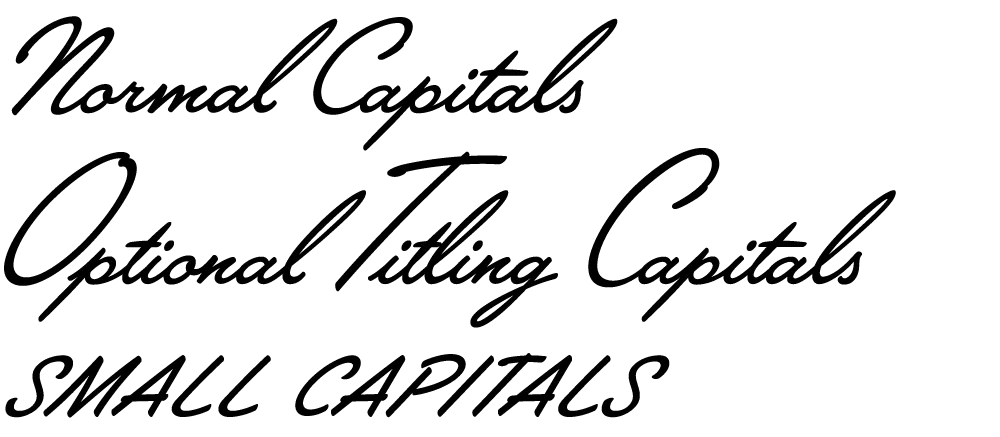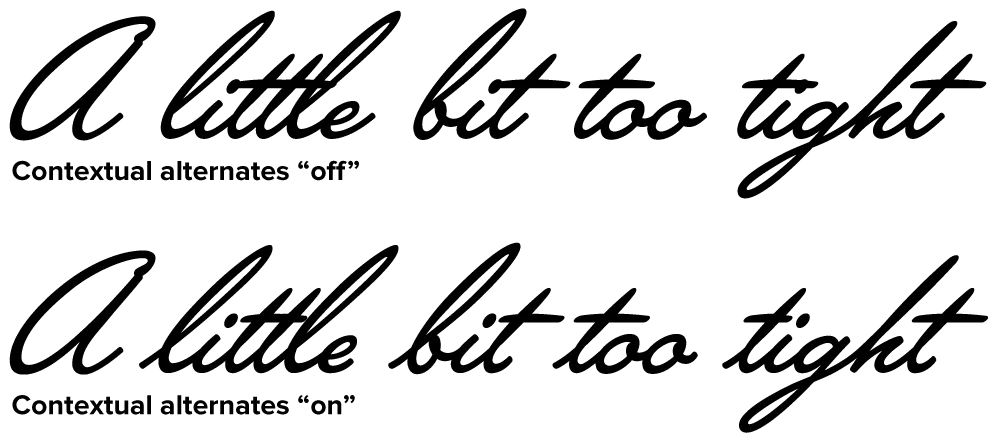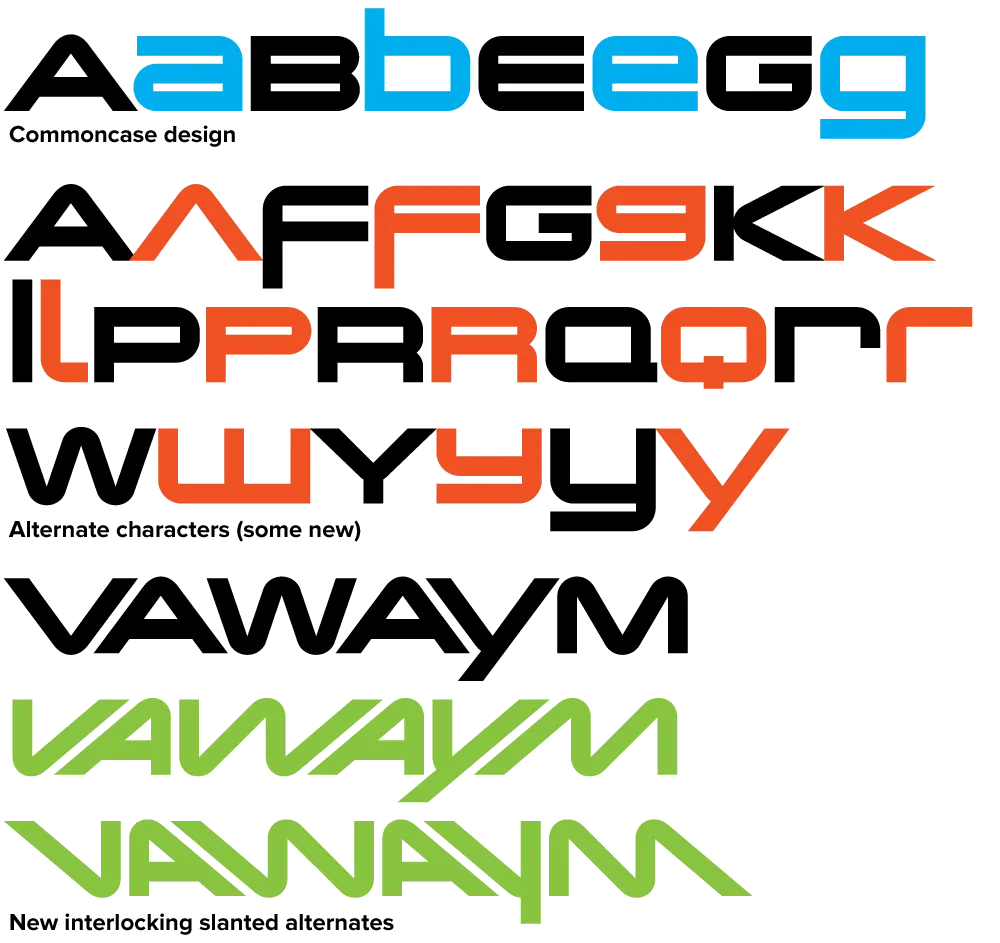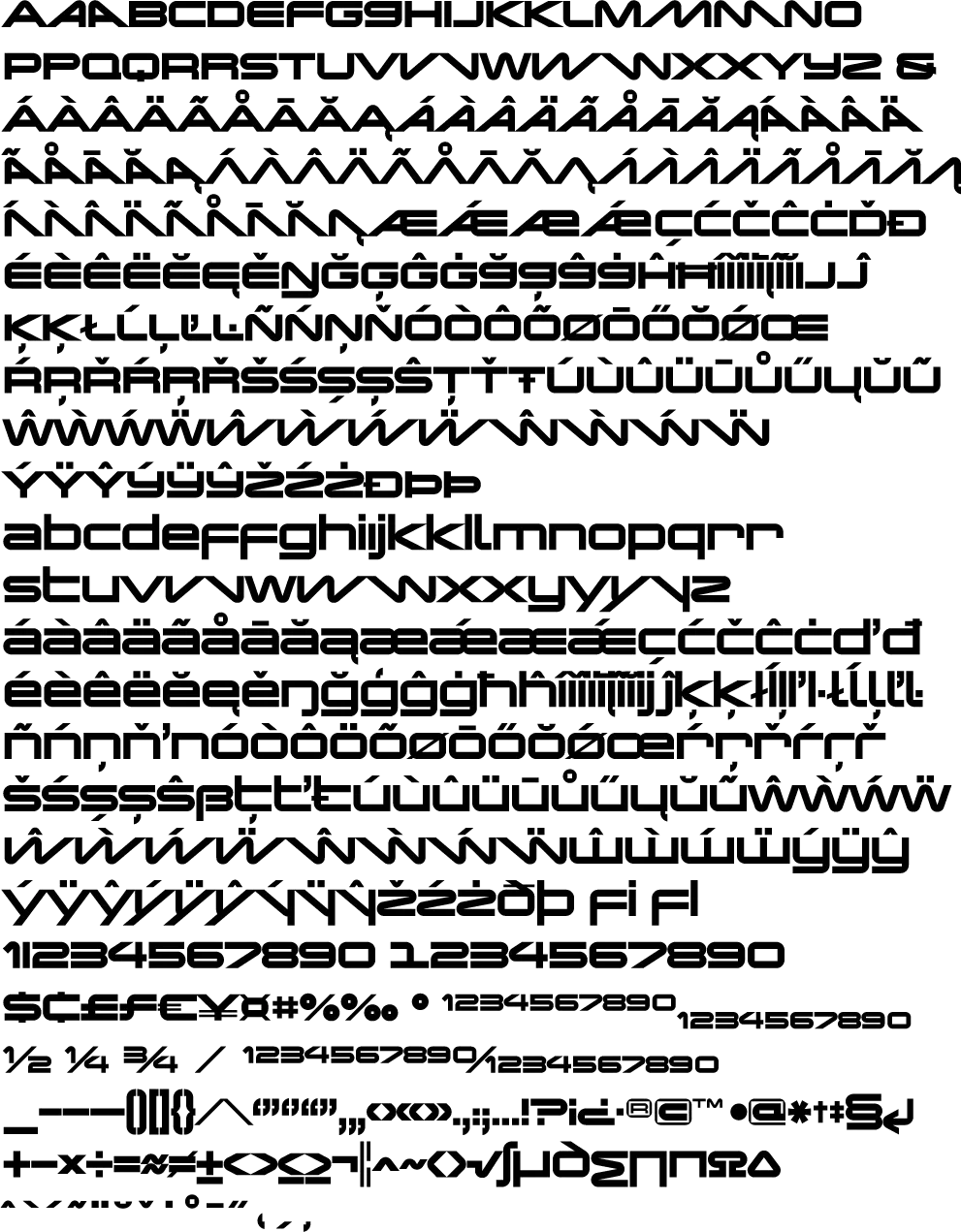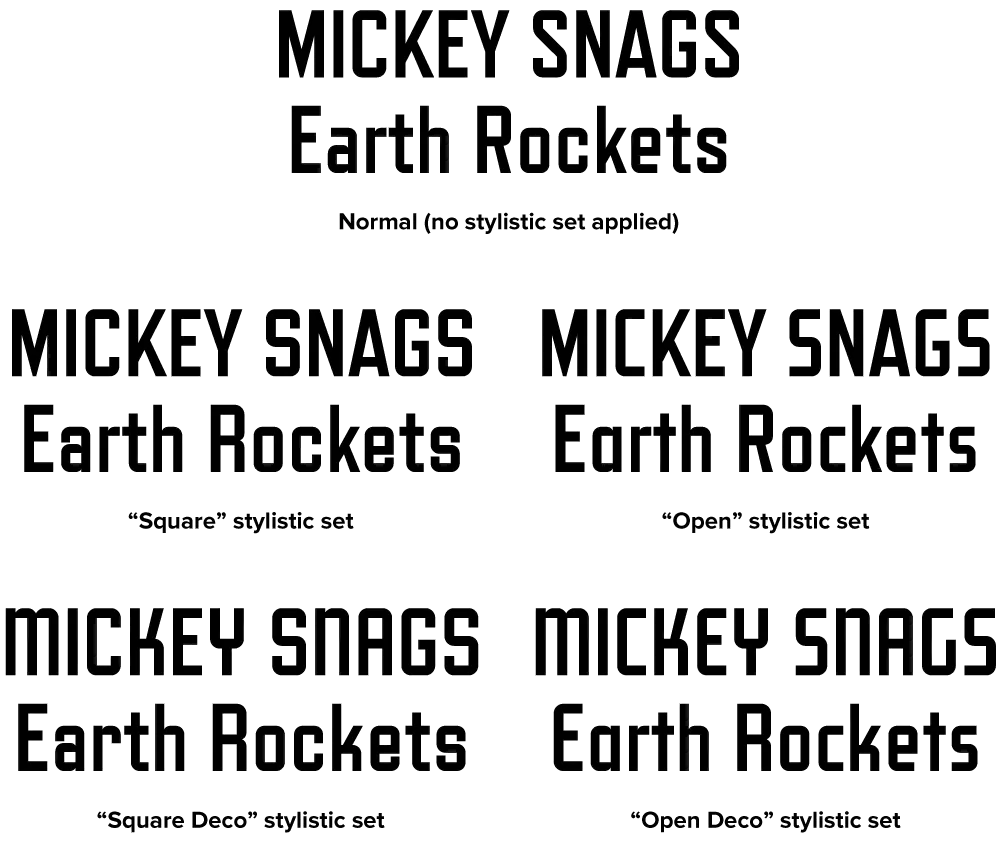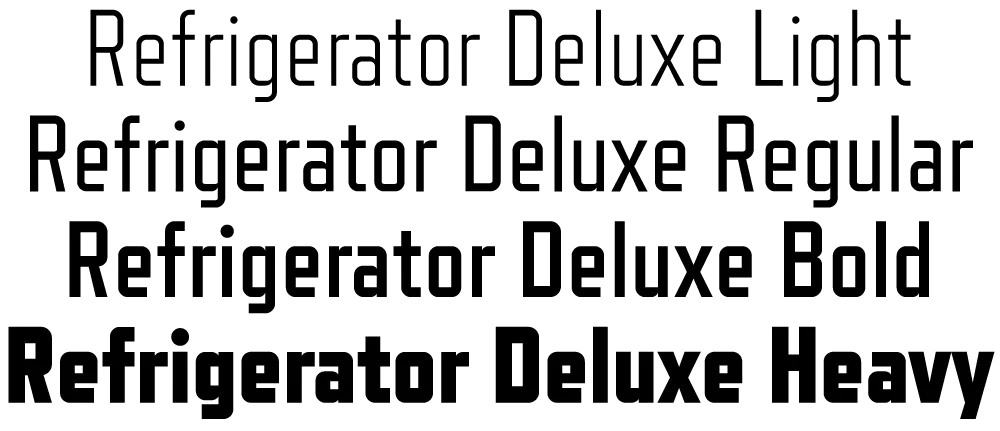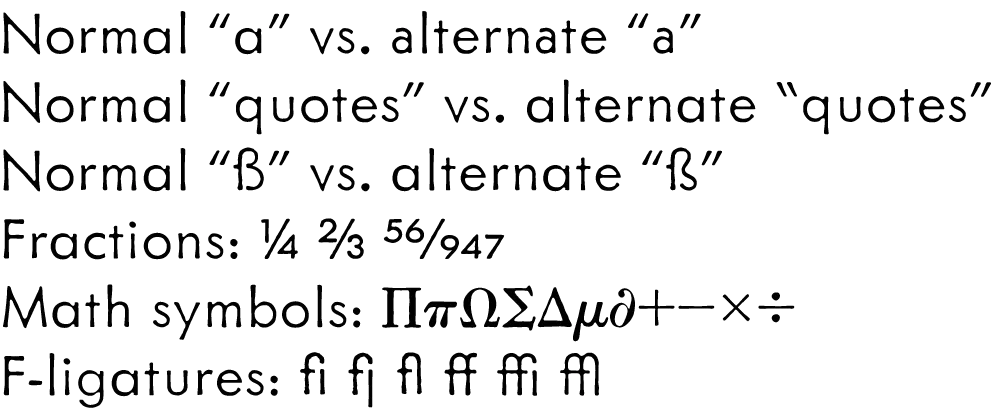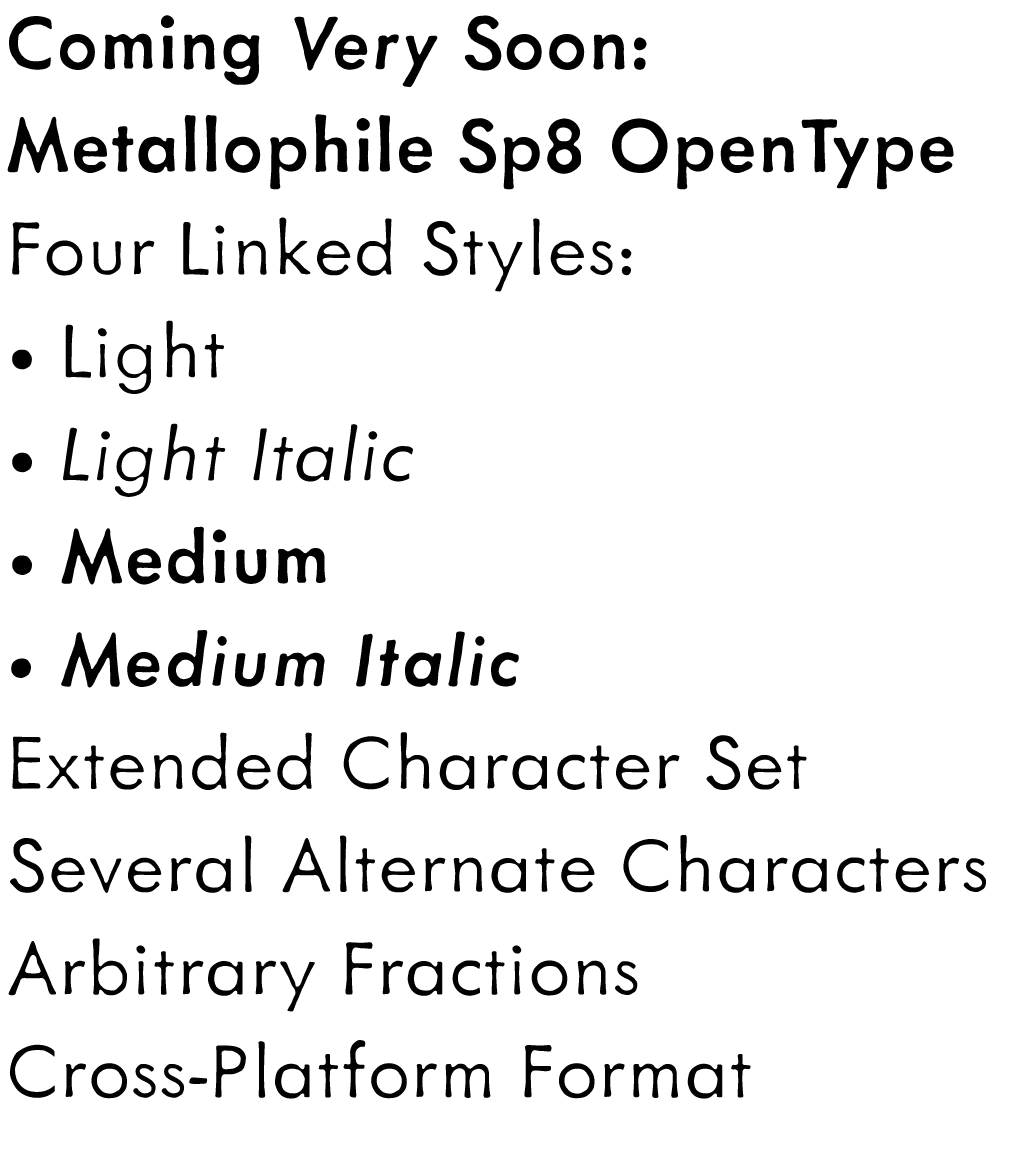
Changeling Neo Weights
In 2003, I released my interpretation of China, an old VGC face, which I called Changeling. I redesigned many of the characters for more even type color. I also added lowercase-style variants to nearly all the uppercase forms, for endless “unicase” combinations, alternate forward- and back-slanting characters for A, M, V, and W, and a more complete character set. I spaced it to emulate the “tight, but not touching” style of spacing popular in the ’70s. Finally, I created four new styles—Light, Regular, Stencil, and Inline.
Changeling Neo Weights
Changeling Neo (2008) builds on this with even more alternate characters (including a few from VGC China I had previously left out), extensive language support, and lots of improvements in fit and finish. Changeling Neo is available exclusively in the OpenType format. Alternate characters are accessed using OpenType Stylistic Alternates and Stylistic Sets features. Standard characters that were “hijacked” in Changeling (to make room for alternate characters) have been reinstated. Changeling Neo also includes support for fractions, superscript and subscript, as well as tabular figures.
Changeling Neo Characters
Refrigerator dates back to 1988 as one of my earliest PostScript typefaces. The concept was very simple: A blocky, condensed sans serif with rigidly geometric forms. I was inspired partly by Neville Brody’s Industria, but very quickly it veered toward more of a mid-20th century vernacular appearance. It wasn’t based on anything specific. Rather, it seemed to come from memories of block-style lettering from when I was young.
Refrigerator Deluxe (2008) extends the family from a specific vernacular style to an anthology of vernacular styles through the extensive use of alternate characters, nearly doubling the character count. (The alternate characters are accessed either through OpenType Stylistic Sets or the Glyph palette, depending on your software application). These range from squared off, closed shapes, with a minimum of angled strokes, to open, stylized shapes with more of an Art Deco feel. Using different combinations of these alternates, Refrigerator Deluxe can take on an endless variety of appearances from basic block to high style.
Also new in Refrigerator Deluxe is the addition of a fourth weight (Regular), improvements in many small details, like spacing, kerning, hinting (for better on-screen display), character design refinements, extensive language support (most Western and Central European Latin-based languages), fractions, case-sensitive forms, and lots of “f” and “t” ligatures.
Introducing Diane Script
Diane Script and Diane Script Premiere.
I recently partnered with Mark Solsburg of FontHaus, who has lately become fascinated with twentieth century French type foundries and type designers, to create a faithful digital revival of Diane, a typeface designed by Roger Excoffon. It was released in 1956, around the same time as his more famous Mistral and Choc. For reasons that aren’t clear to me, Diane seems to have never become as popular as his other faces, especially in the U.S. Finding full specimens of the font turned out to be quite a challenge. In many cases, only the caps and lowercase are shown.
With Mark’s help, I was able to get hold of source material from the University of Groningen in the Netherlands, D. Stempel GmbH metal type services in Frankfurt, Germany, as well as from some type specimen books that I already had in my possession.
Lowercase and numbers, common to both styles.
As I researched and studied the face, many curious facts came to light. The caps in earlier specimens of Diane are completely different from specimens published later, suggesting that the face was redesigned at some point, perhaps in the mid-1960s. So we are left with two different sets of caps.
Excoffon's original caps.
Plain caps, added later.
The original had very elaborate, swirly strokes, characteristic of Excoffon’s gestural designs for posters and logos. Later on, these appear to have been replaced by a set of simpler, more traditional script caps. The original caps are criticized in one source I found (“Practical Handbook on Display Typefaces”, 1959) as being “exquisite” but “not highly legible”. Perhaps this is what led to the simpler caps being introduced.
'Prototype' caps.
Even more curious, the caps shown in the Olive specimen “3 Scriptes” that accompanied its release in 1956 are noticeably different from the ones found in existing Diane metal fonts. The only conclusion I can make is that Diane, as it was shown in the “3 Scriptes” specimen, was not yet finalized when this was published. (Some of these earlier character designs are included in my revival.)
Alternate 'prototype' lowercase characters.
Changes appear to have been made in the lowercase as well. Several characters have non-connecting incoming strokes in the 1956 version. In the later version, the strokes all connect. The lowercase o also differs, with the original “3 Scriptes” specimen showing a loop inside the counter, apparently dropped in the released version.
More weights are already in the works, which I hope to release this Summer, but I wanted to get these out as soon as they were ready.
Metallophile Sp8 OpenType sample image.
When I released Metallophile Sp 8 in 2003, the plan was to add more weights eventually. Now that I am converting my older fonts to OpenType format, that time has come. These four fonts should be available soon from my usual distributors. More details to come. More weights later this year.